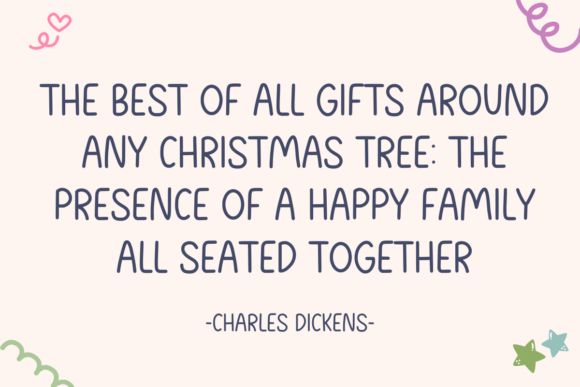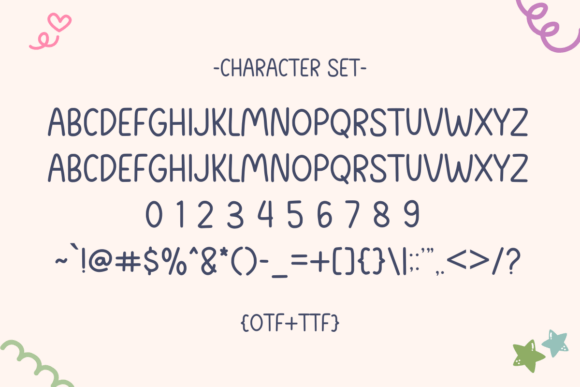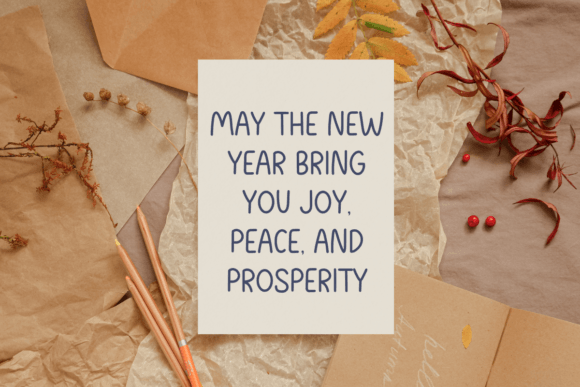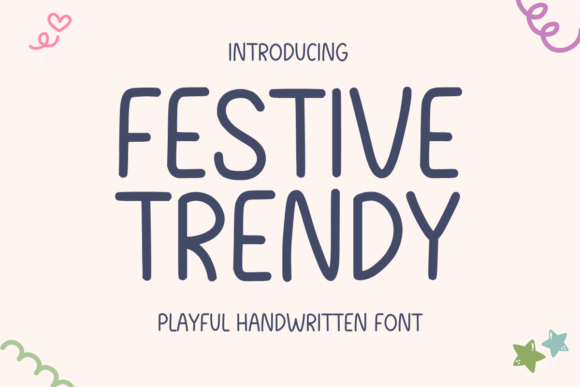
Introduction to Festive Trendy Font
Introducing Festive Trendy, a charmingly organic handwritten font that exudes a natural authenticity.
This font shines perfectly across a diverse array of platforms, from planners, journals, and diaries, to printable notepads and daily schedules Simply adorable in the interior of daily trackers, organizers, calendars, and stationery, this lighthearted aesthetic offers a warm touch to your work.